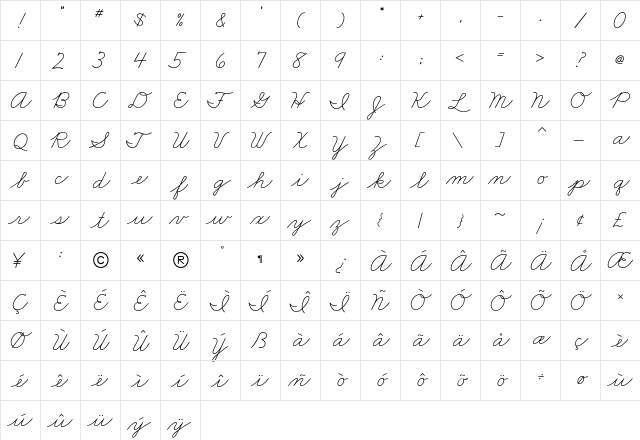
ZBCursive Regular
| Foundry | vLetter, Inc |
| Designer | vLetter, Inc. |
Design Context for ZBCursive Typeface
ZBCursive flows with the natural rhythm of handwritten lettering, making it ideal for designs that call for warmth and personal expression.
Font Pairing: Combine ZBCursive with a simple geometric sans for maximum contrast — the tension between flowing curves and clean structure is a classic typographic pairing.
Pro Tip: Pair ZBCursive with a clean sans-serif for supporting text. The contrast between fluid script and geometric structure creates an elegant typographic hierarchy.